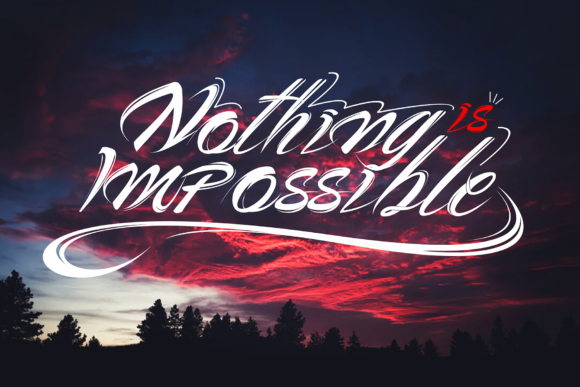
Introduction to Ruckshack Font Font
Fonts play a crucial role in design, and the Ruckshack Font font is a typeface that brings both character and versatility to any project. Whether you’re working on a branding project, a website, or a print design, the Ruckshack Font font offers a unique style that can elevate your work.
| 📌 Font Name | Ruckshack Font |
| 👤 Author | Cikareotype |
Ruckshack is a sweet and natural script with a cool vibe.
Get inspired by its unique charm .
Key Features of Ruckshack Font Font
Why Choose Ruckshack Font Font?
The Ruckshack Font font is more than just a typeface – it’s a design tool that helps you communicate your message with style and clarity. Its unique character set and versatile design make it suitable for a wide range of applications, from elegant invitations to bold headlines.
With its carefully crafted letterforms and balanced proportions, the Ruckshack Font font ensures readability and visual appeal across all mediums.
What makes Ruckshack Font font special?
The Ruckshack Font font stands out with its unique design, exceptional readability, and versatility across various design applications.